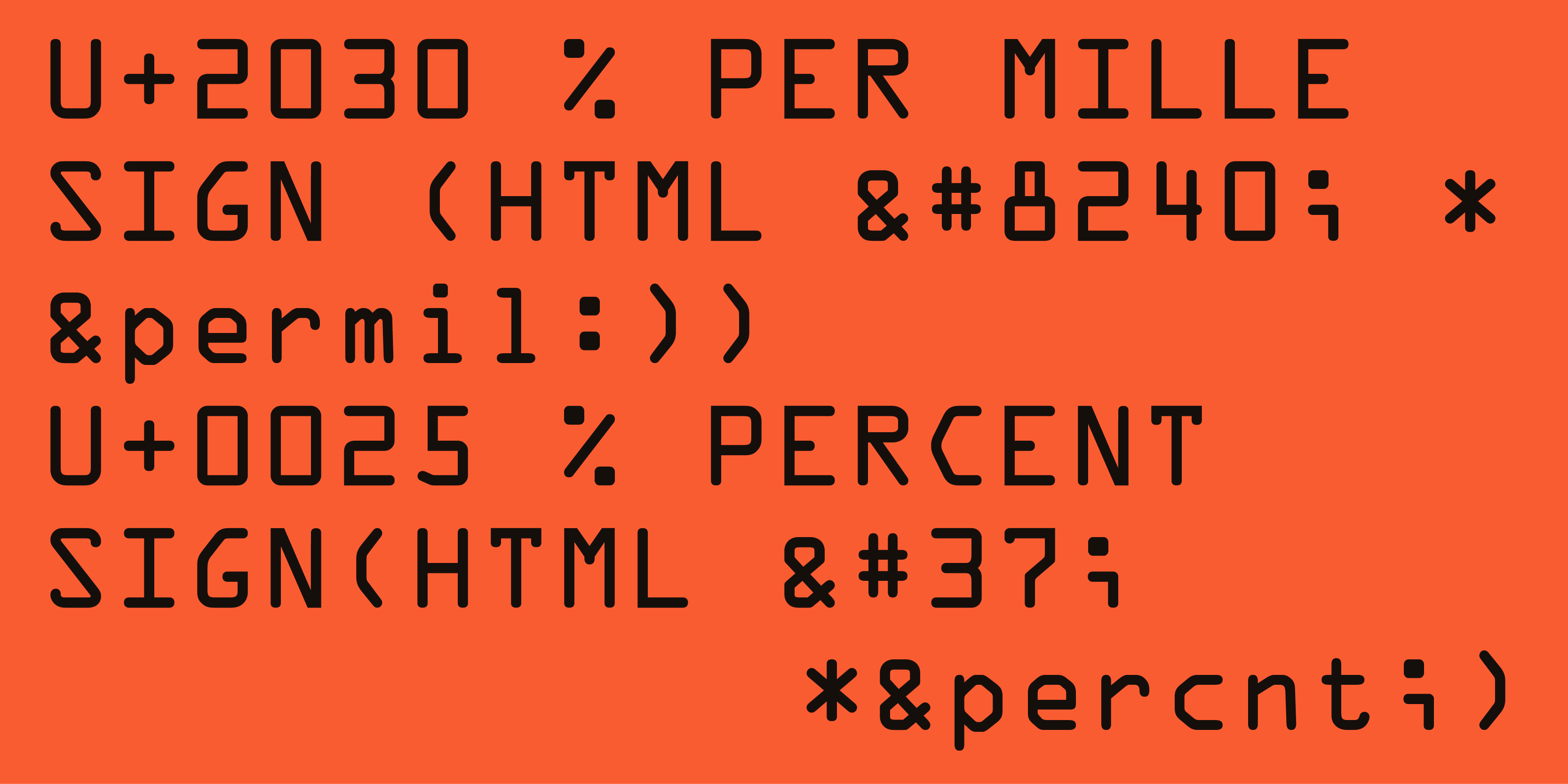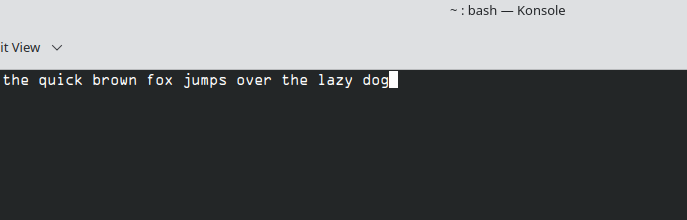
What font do you use for terminal stuff?
I like OCR-A.
This is what it looks like in konsole. For my needs I think it looks nice and it's very legible for me.
courier
this one
https://fonts.google.com/specimen/Workbench
San Francisco Mono for Terminal.app, MonoLisa on macOS, Berkeley Mono on Linux
all at 200% zoom, of course